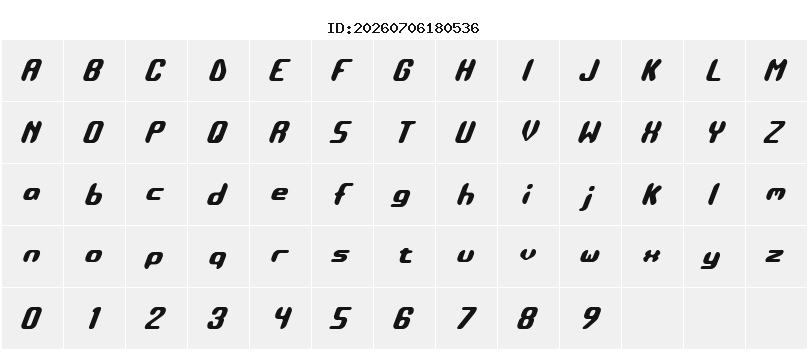
• Font Name: Detonate (BRK)
• Full Font Name: Detonate (BRK)
About Detonate (BRK).ttf
Detonate (BRK).ttf is a modern, elegant sans-serif font designed for ultimate readability and visual harmony. Perfect for branding, headlines, web design, and print materials.